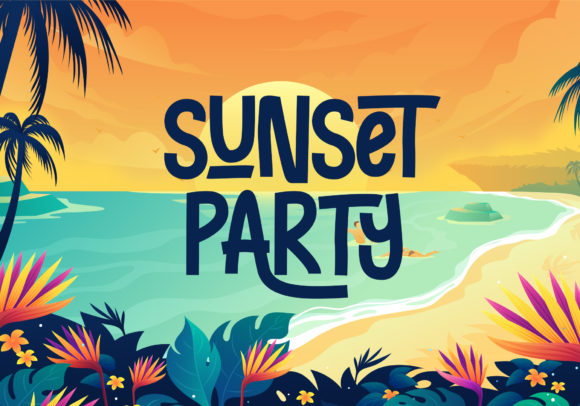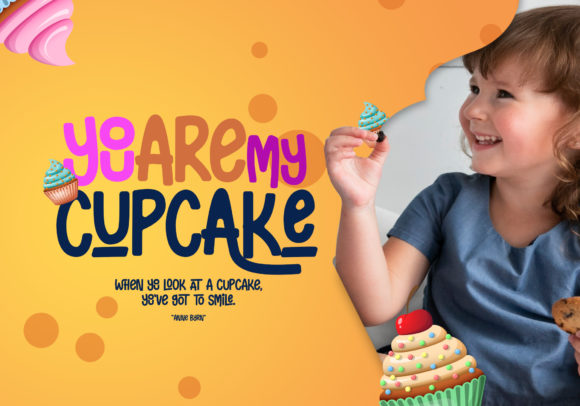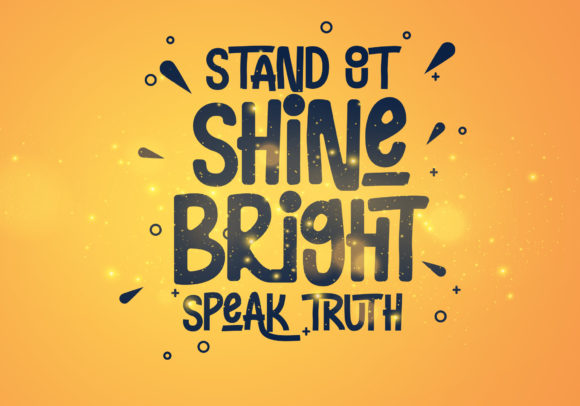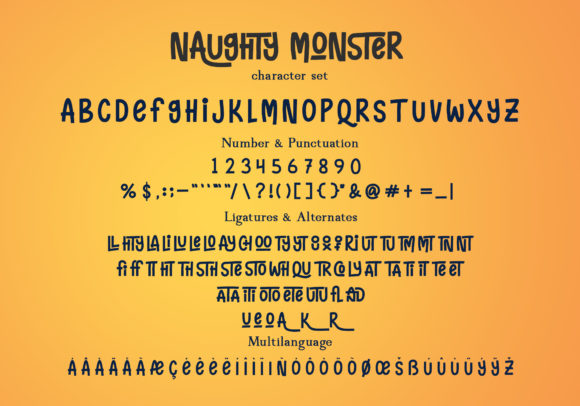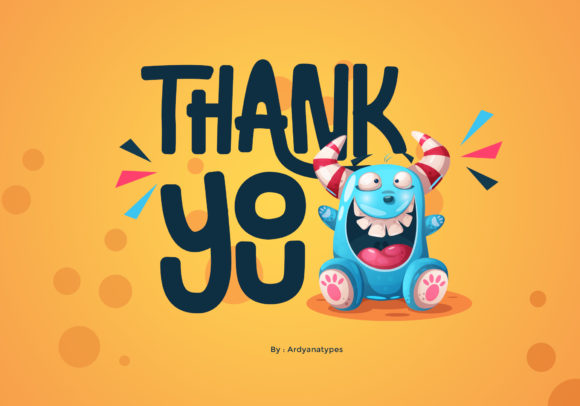
Introduction to Naughty Monster Font
You’ve finally landed the perfect creative project – a fun DIY craft or a new logo for your business. The excitement is palpable, but then the daunting task of choosing the perfect font sets in. This is where the Naughty Monster Font comes to the rescue, adding a dash of playfulness to your design. With its friendly feel and high-quality design, this font is an absolute game-changer for designers looking to elevate their projects.
Whether you’re working on a social media campaign or a crafty DIY project, the Naughty Monster Font is sure to bring a smile to your face. Its transparent background and adorable characters make it an excellent design resource for anyone looking to add a personal touch to their work. And the best part? You can download it for free, making it an accessible and valuable resource for designers of all levels.
Key Features of Naughty Monster Font
- High-quality design: The Naughty Monster Font is a premium design resource, perfect for creative projects that require a unique and playful touch.
- Transparent background: This font features a transparent background, making it easy to use with any image or design element.
- High-resolution design: The Naughty Monster Font is designed at a high resolution, making it suitable for use in both print and digital projects.
- Unique character set: The font features a unique character set, including uppercase and lowercase letters, numbers, and special characters, making it perfect for creative projects that require a personalized touch.
- Perfect for kids and playful projects: The Naughty Monster Font is designed to be playful and fun, making it an excellent choice for kids’ projects, birthday invitations, and other creative endeavors.
Honest Review: Naughty Monster Font
I recently stumbled upon the Naughty Monster Font, and I must say it’s quite a find. As a designer, I appreciate high-quality design resources that can elevate a creative project. This font fits the bill.
- What works well: ✨ The Naughty Monster Font has a unique, playful personality that can add a lot of character to a design. The bold lines and rounded edges give it a fun, whimsical feel that’s perfect for kids’ projects or playful branding.
- What works well: ✨ The font is highly customizable, with a transparent background that makes it easy to overlay on top of other elements. This is a huge plus for designers who need to create complex compositions.
While the Naughty Monster Font has a lot of positives, there are a few limitations to consider: ⚠️ The font may not be suitable for more formal or professional projects, as its playful nature may come across as unprofessional. Additionally, the font may not be compatible with all operating systems or software.
Overall, I’m impressed with the Naughty Monster Font. It’s a free download that offers a lot of value for designers looking to add some personality to their projects. Whether you’re working on a creative project or just need a fun font for a personal project, the Naughty Monster Font is definitely worth checking out.
The Naughty Monster Font is ideal for: children’s book illustrations, party invitations, and social media graphics. Its playful, whimsical nature makes it perfect for creative projects requiring a fun, energetic vibe.